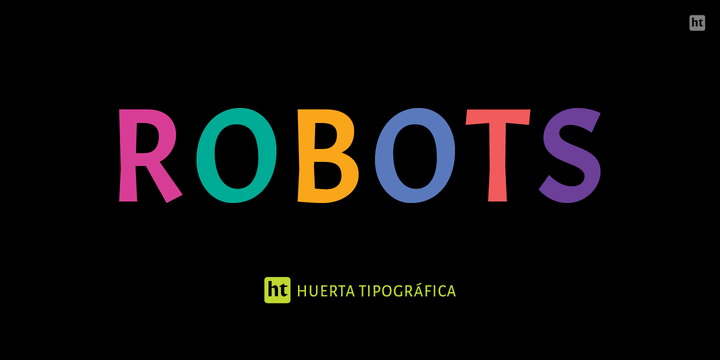
Robots ht
by Huerta Tipográfica
The challenge was to build a family of robots for using assembled or separated into modules. This family consists of 7 styles: the first one contains ready-to-use robots, the other styles contain 387 modules grouped into: heads, torsos, arms & hands, legs & feet, extras (eyes, accessories) and arrows.
A family for everyone’s wish. Ready-to-use or make-it-your-own: more than 2 million possible combinations!